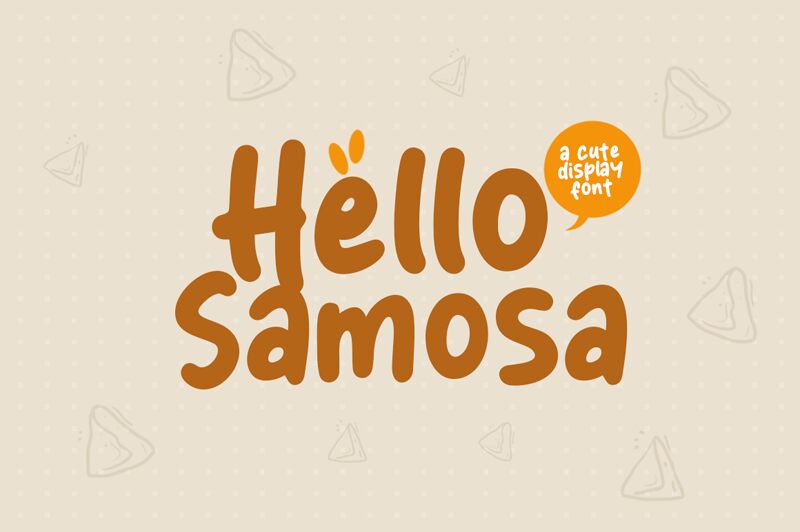
Hello Samosa
Hello Samosa, by Khurasan, is a whimsical display font that bursts with playful energy. Its cartoon style exudes a friendly and inviting vibe, making it perfect for designs that aim to captivate and amuse. The font’s bold strokes and rounded edges create an approachable feel, while its exaggerated curves add a touch of fun and mischief.
Ideal for children's books, playful branding, or any project seeking a joyful touch, Hello Samosa brings life to any text. Whether it’s used in headlines or logos, this font commands attention with its cheerful personality and unique charm. Embrace the lighthearted spirit of Hello Samosa to infuse your designs with creativity and warmth.